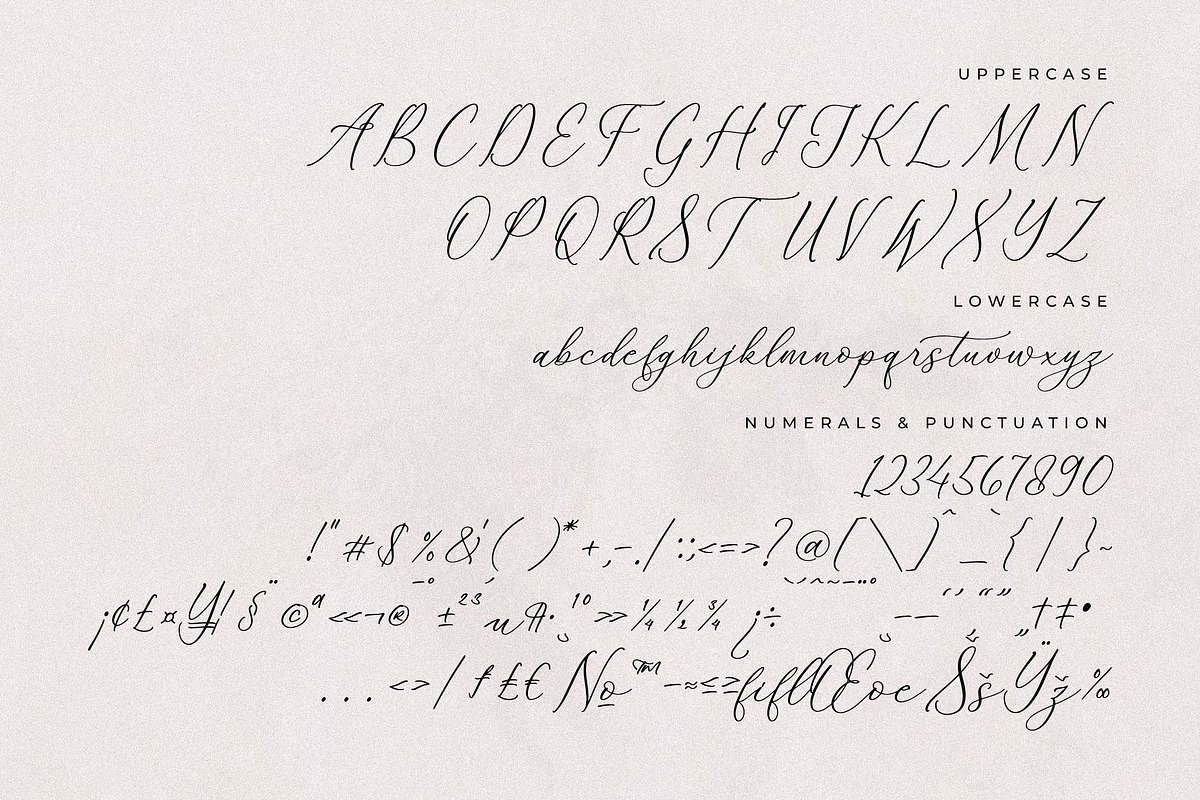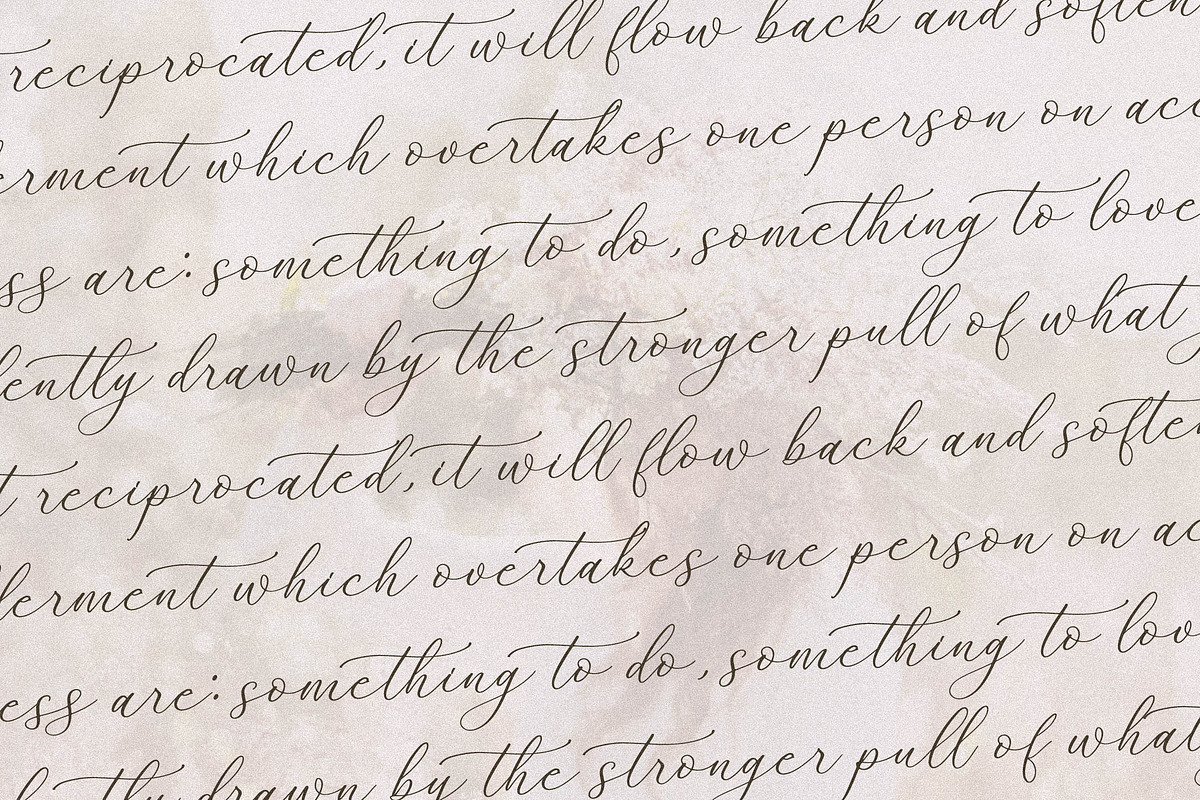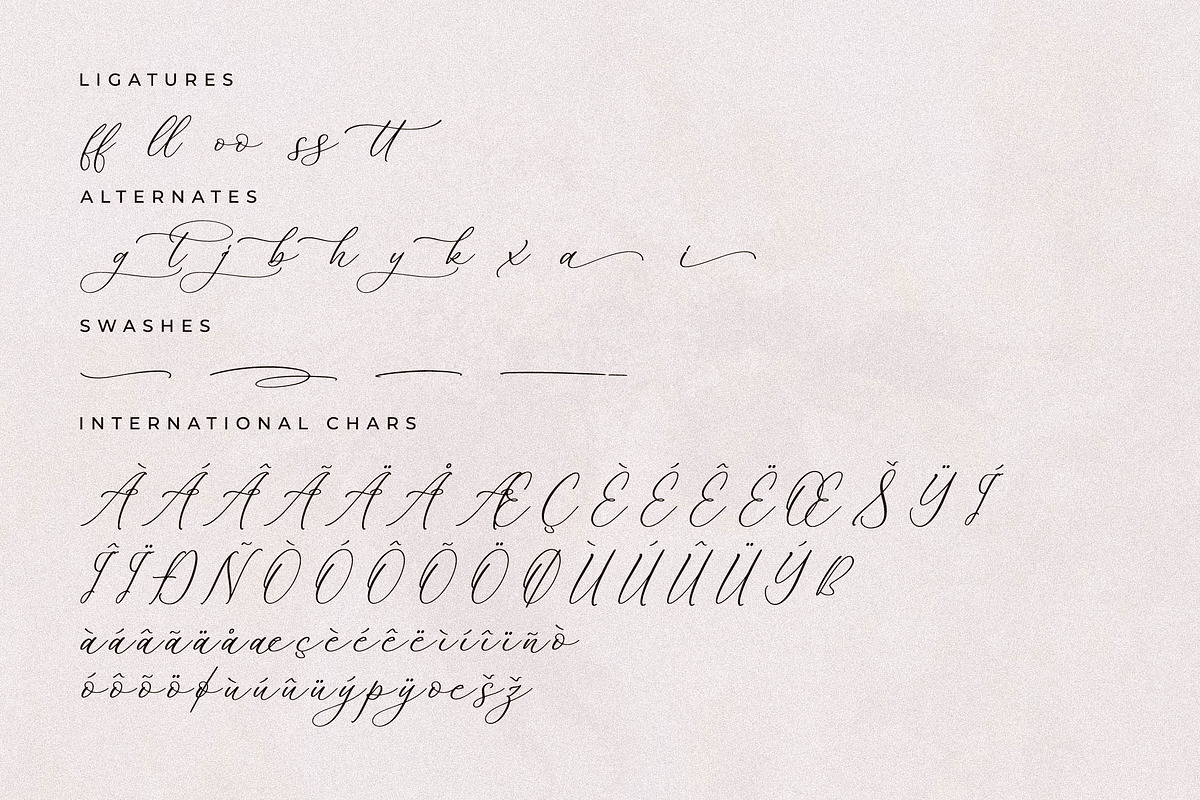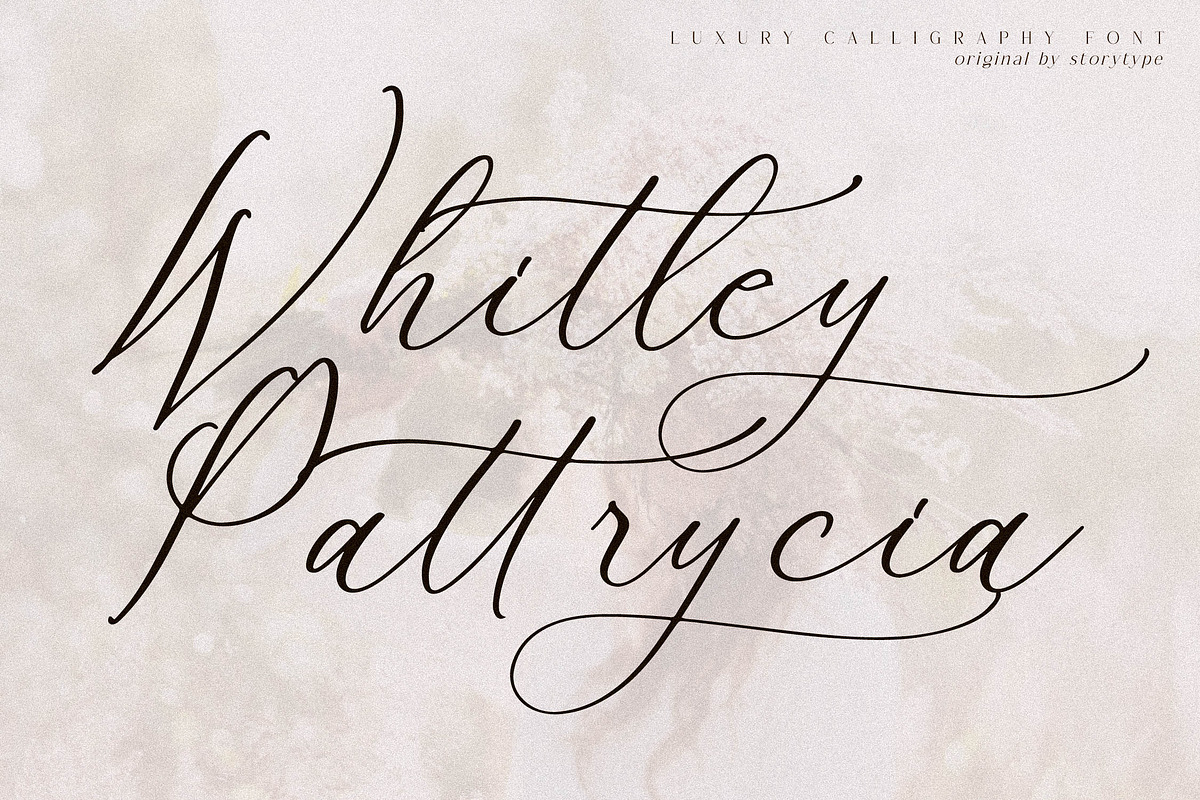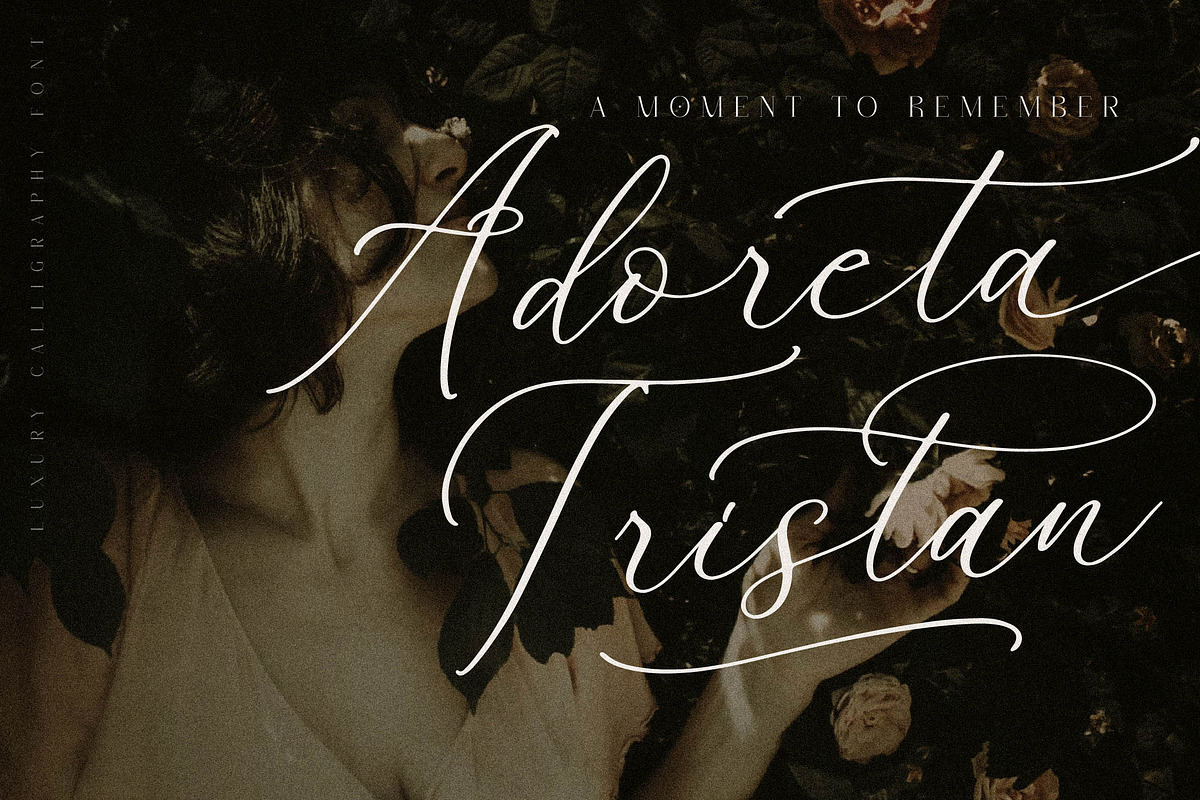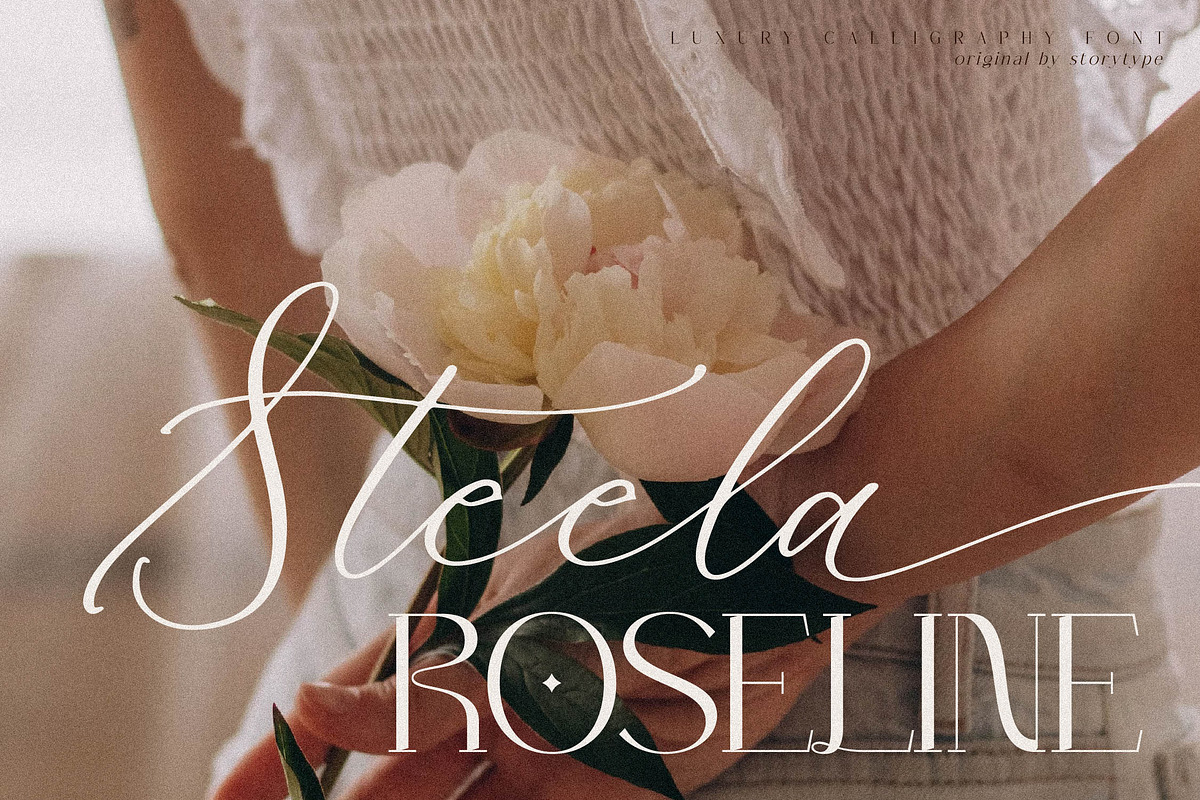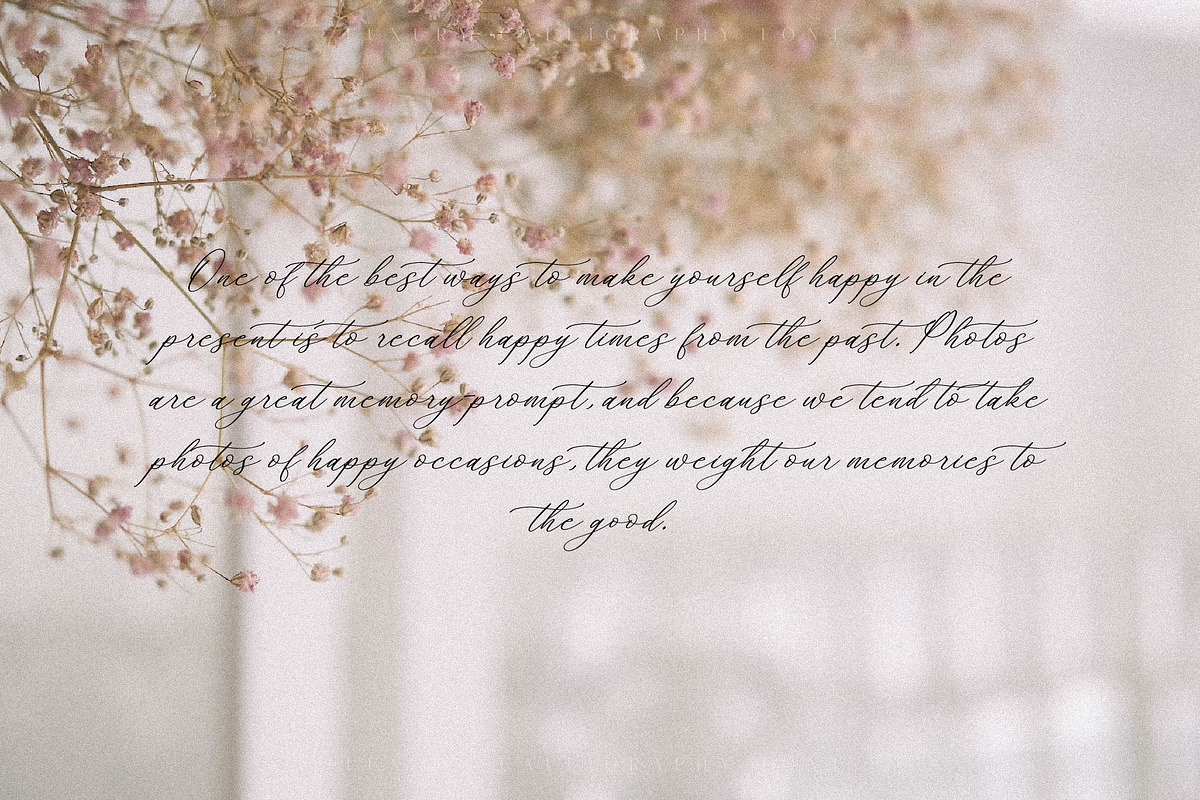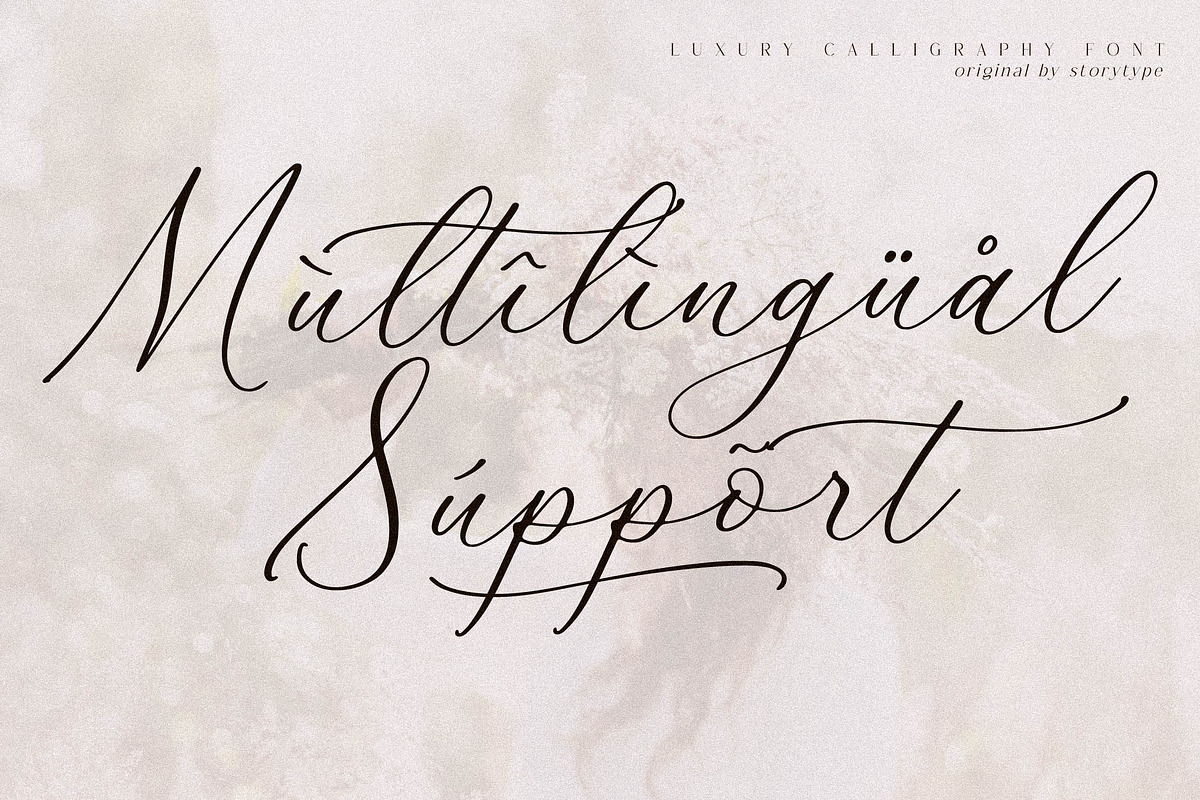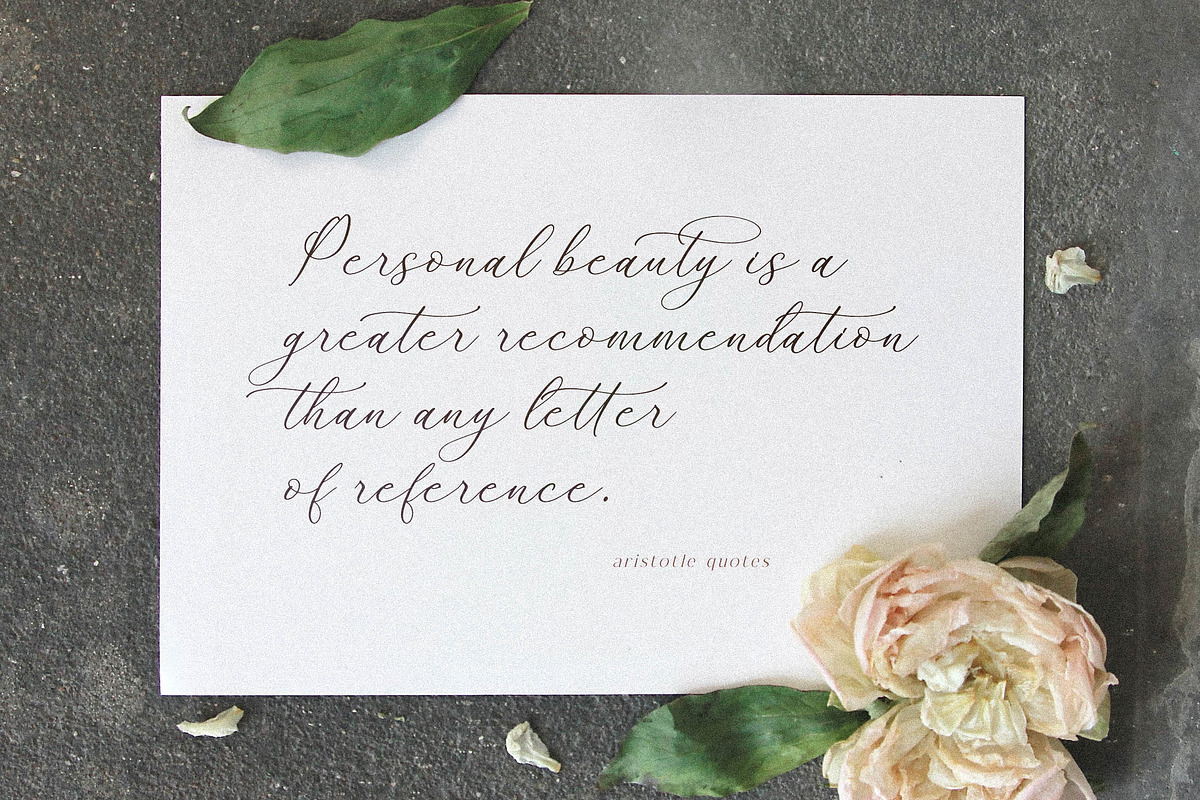
Whitley Pattrycia Luxury Calligraphy
Proudly present Whitley Pattrycia - Luxury Calligraphy Font , created by Storytype, A luxury script that has own unique style & modern look. This typeface is perfect for an elegant & luxury logo, book or movie title design, fashion brand, magazine, clothes, lettering, quotes, and so much more.